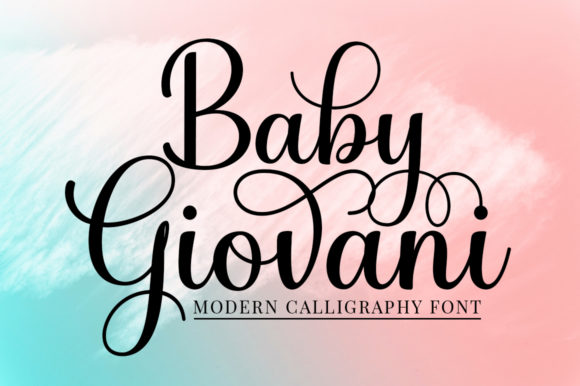
Baby Giovani Script Font: The Epitome of Elegance and Sophistication
In the realm of typography, few fonts manage to convey the essence of luxury and refinement as effectively as the Baby Giovani Script Font. This exquisite font is a masterclass in elegant design, boasting a sophisticated aesthetic that instantly elevates any project it’s used in. With its rich feature set, including stylish alternates and ligatures, Baby Giovani is the perfect choice for designers seeking to add a touch of class and poise to their work.
The Design Philosophy Behind Baby Giovani
Baby Giovani’s design is rooted in a deep understanding of traditional script typography, combined with a modern sensibility that ensures it remains highly legible and versatile. Each letterform is meticulously crafted to exude a sense of fluidity and movement, while maintaining a high level of clarity. This balance between style and functionality is what sets Baby Giovani apart from other script fonts on the market.
Key Features of Baby Giovani Script Font
- Stylish Alternates: Baby Giovani comes equipped with a range of stylish alternates for many of its characters. These alternates allow designers to introduce variation into their text, preventing it from becoming monotonous and adding an extra layer of visual interest.
- Ligatures: The font includes a set of ligatures, which are special character combinations that join together to create a more harmonious and flowing text appearance. Ligatures are particularly useful in script fonts, as they help to eliminate awkward spacing and create a more natural flow.
- Feature-Rich: With its extensive set of features, Baby Giovani is incredibly versatile. Whether you’re working on a branding project, a website, a print advertisement, or any other type of design, this font has the tools you need to create something truly special.
Applications of Baby Giovani Script Font
The versatility of Baby Giovani makes it suitable for a wide range of applications. Here are a few examples of projects where this font truly shines:
- Branding and Logotypes: The elegant and sophisticated nature of Baby Giovani makes it an excellent choice for branding projects. It’s perfect for creating logos, business cards, and other corporate materials that require a high level of professionalism.
- Wedding and Event Stationery: For designers working on wedding invitations, event programs, or similar projects, Baby Giovani offers a touch of luxury and romance. Its flowing script lines and elegant alternates help to create beautiful, bespoke stationery.
- Web Design: On the web, typography plays a crucial role in user experience. Baby Giovani’s readability and stylish alternates make it an excellent choice for headings and titles, helping to create visually appealing and engaging websites.
- Advertising and Marketing Materials: In advertising, capturing the audience’s attention is key. Baby Giovani’s unique and sophisticated appearance makes it perfect for use in print ads, flyers, brochures, and other marketing materials where standing out is essential.
Why Choose Baby Giovani?
With so many fonts available to designers today, what sets Baby Giovani apart? Here are a few reasons why Baby Giovani should be at the top of your list:
- Unique and Memorable: Baby Giovani’s distinctive style ensures that your project will stand out from the crowd. Its elegant appearance is both memorable and impactful, helping to leave a lasting impression on viewers.
- Highly Versatile: Thanks to its extensive feature set, Baby Giovani can be used in a wide range of projects. Whether you’re working on a corporate brand or a creative side project, this font adapts effortlessly to fit your design needs.
- Easy to Read: Despite its elegant and cursive nature, Baby Giovani remains highly legible. This makes it suitable for both headings and body text, offering flexibility in your typography choices.
Baby Giovani Script Font is a stunning example of modern typography, combining the elegance of traditional script fonts with the versatility and readability required for contemporary design projects. Its stylish alternates, ligatures, and feature-rich design make it an invaluable tool for designers seeking to add a touch of sophistication and luxury to their work. Whether you’re creating branding materials, wedding stationery, or advertising campaigns, Baby Giovani is sure to exceed your expectations and help you achieve your design goals.
In conclusion, Baby Giovani Script Font stands out as a premier choice for designers worldwide. Its blend of elegance, versatility, and readability makes it an essential asset for any typography project. By choosing Baby Giovani, you’re not just selecting a font; you’re elevating your design to new heights of sophistication and style.